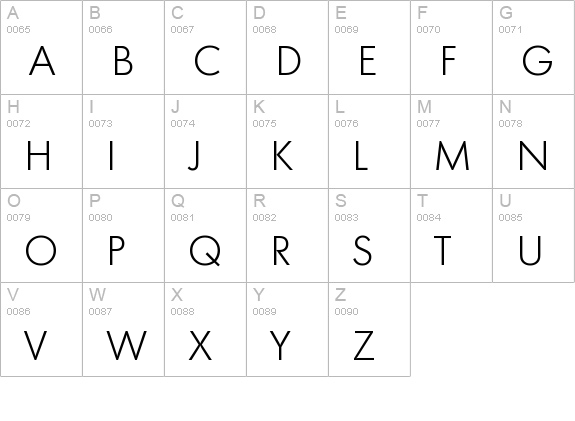
MontrealSerial-Light-Regular is a refined, elegant variant in the MontrealSerial typeface family \xE2\x80\x94 well suited to elegant body text, refined sub-headings, and luxury branding.
MontrealSerial-Light-Regular font is a modern and elegant typeface that exudes sophistication and versatility. Its clean lines and balanced proportions make it ideal for a wide range of design projects, from branding to editorial work. The light weight of the font adds a touch of delicacy and refinement, making it perfect for conveying a sense of elegance and sophistication. What sets MontrealSerial-Light-Regular font apart is that it is available for free download at FontsMarket.com. This means that you can access this high-quality font without any cost, making it an excellent choice for designers looking to elevate their projects without breaking the bank. With its timeless appeal and effortless style, MontrealSerial-Light-Regular font is sure to become a staple in your font library.